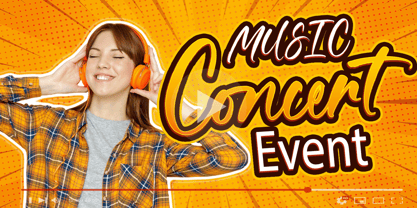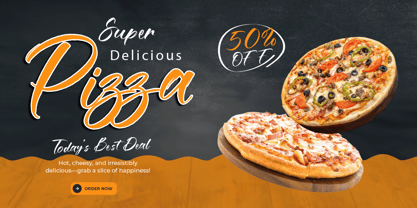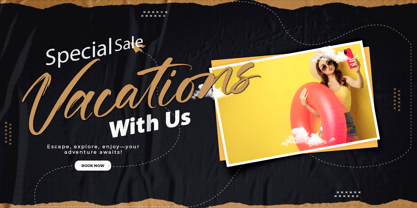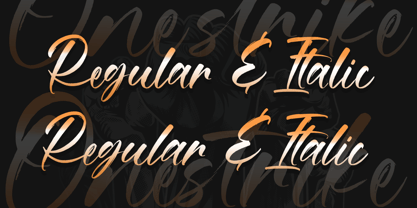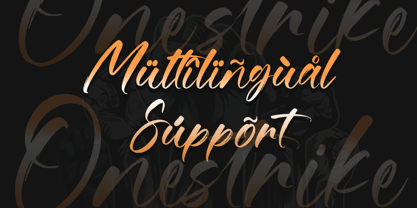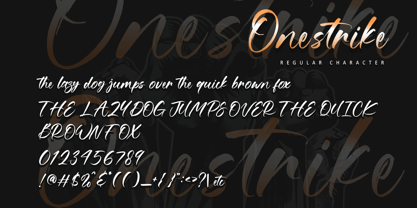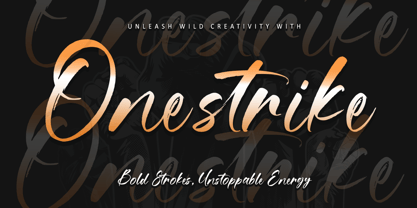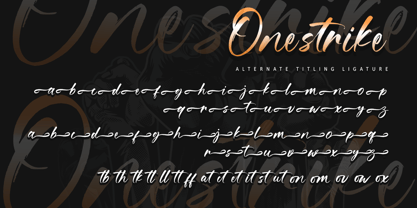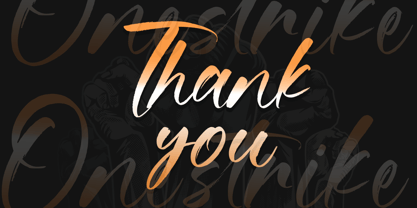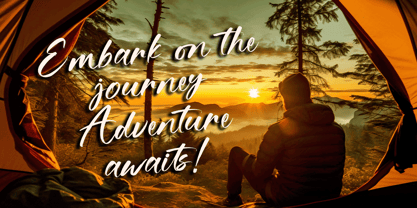
Onestrike
Introducing Onestrike, a bold brush font that embodies raw power and unstoppable energy. With dynamic strokes and a rugged, handcrafted texture, Onestrike adds an electrifying touch to any design. Perfect for daring logos, striking posters, and edgy branding, this font captures the essence of motion and strength. Its expressive letterforms and versatile glyphs bring intensity and character, while PUA encoding ensures seamless access to unique features. Ignite your creativity with Onestrike—a font that delivers impact, attitude, and lasting impressions.